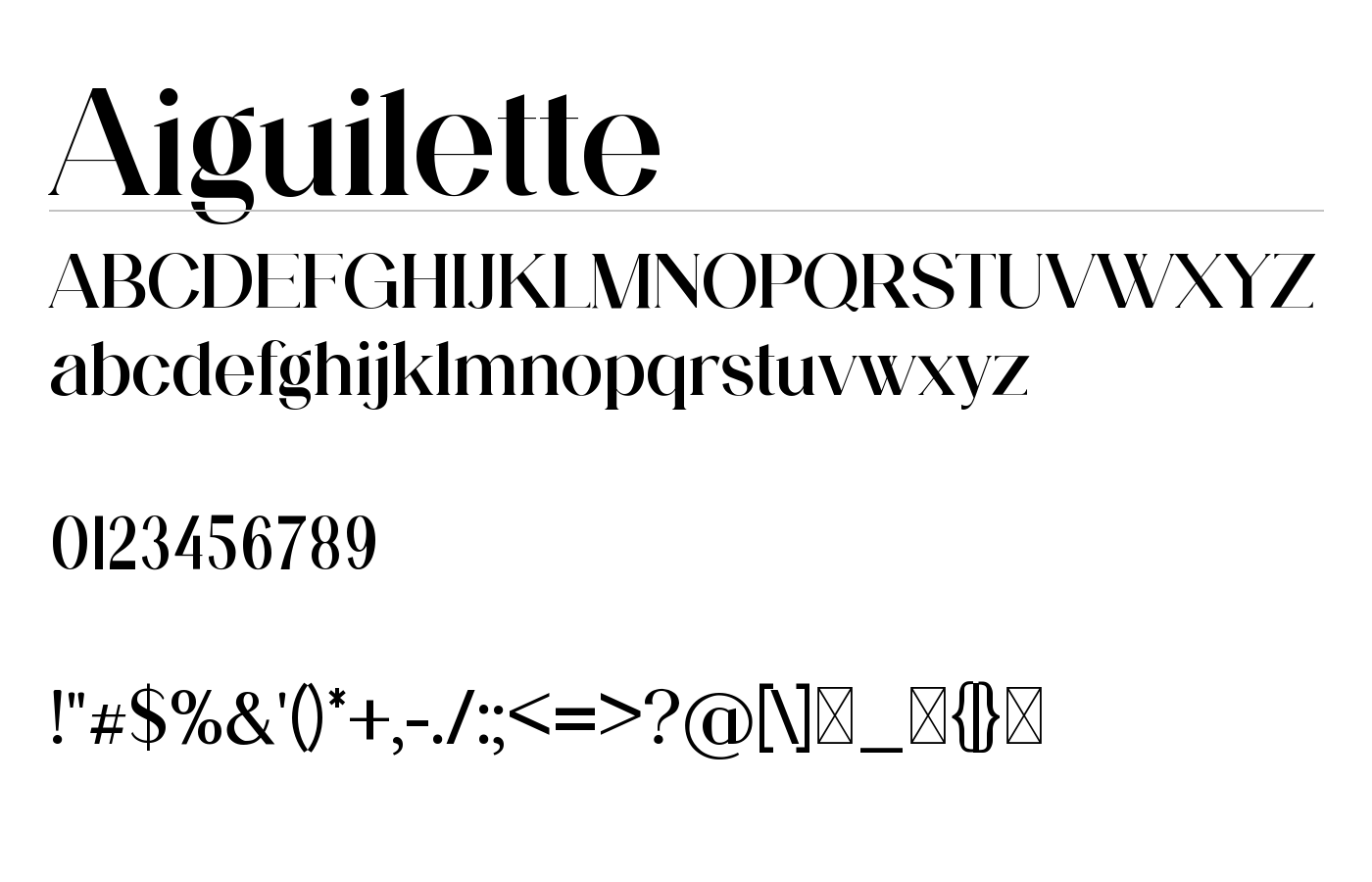
Aiguilette is a sophisticated serif font that combines high contrast strokes and elegant thin serifs, creating a refined and modern appearance. Its tall, narrow letterforms and unique details, such as the single-story lowercase 'g' and distinctive uppercase characters, give it a stylish, luxury feel perfect for upscale branding, editorial headlines, and fashion design. This font works well where a chic and polished look is desired, making it ideal for elegant logos, magazines, and premium packaging.
Aiguilette Font
About Aiguilette Font